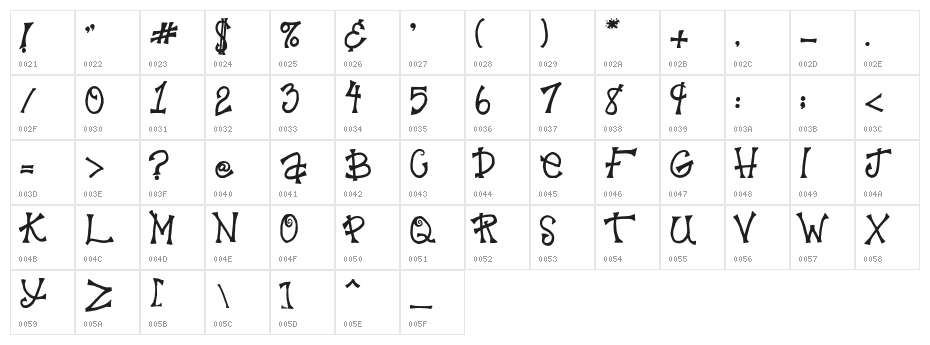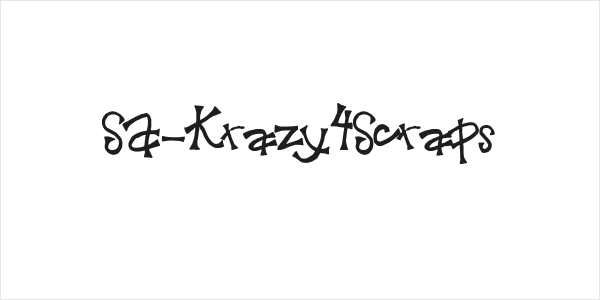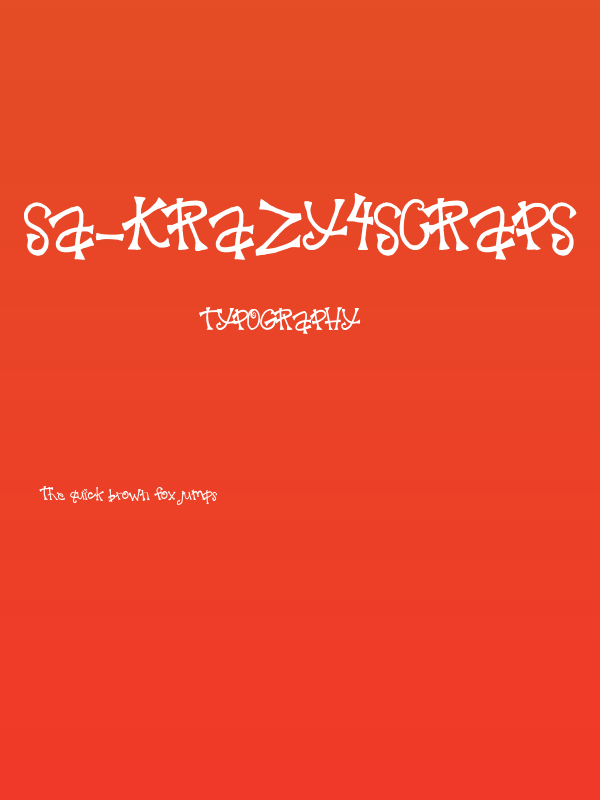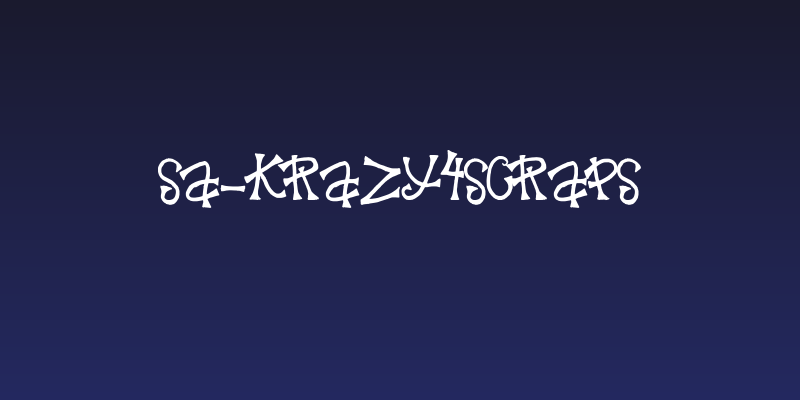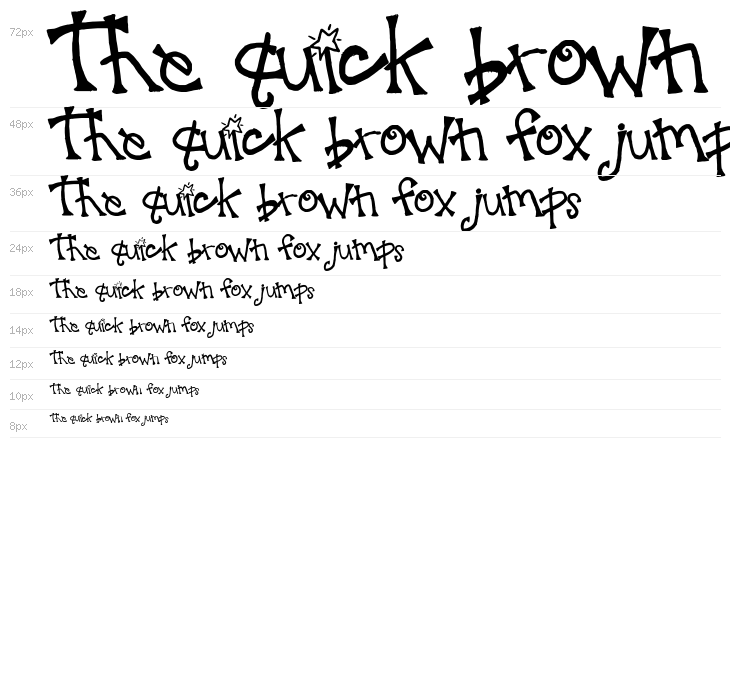
SA-Krazy4Scraps Font
SA-Krazy4Scraps Description
This font features a playful and whimsical design, characterized by its irregular, hand-drawn style. The letters are bold and slightly distorted, giving them a lively and energetic appearance. The uppercase and lowercase letters maintain a consistent style, with exaggerated curves and angles that add to the font's quirky charm. Numbers and special characters follow the same playful aesthetic, making the font suitable for creative and informal projects. The overall look is reminiscent of doodles or graffiti, making it ideal for designs that aim to capture a fun and carefree vibe.